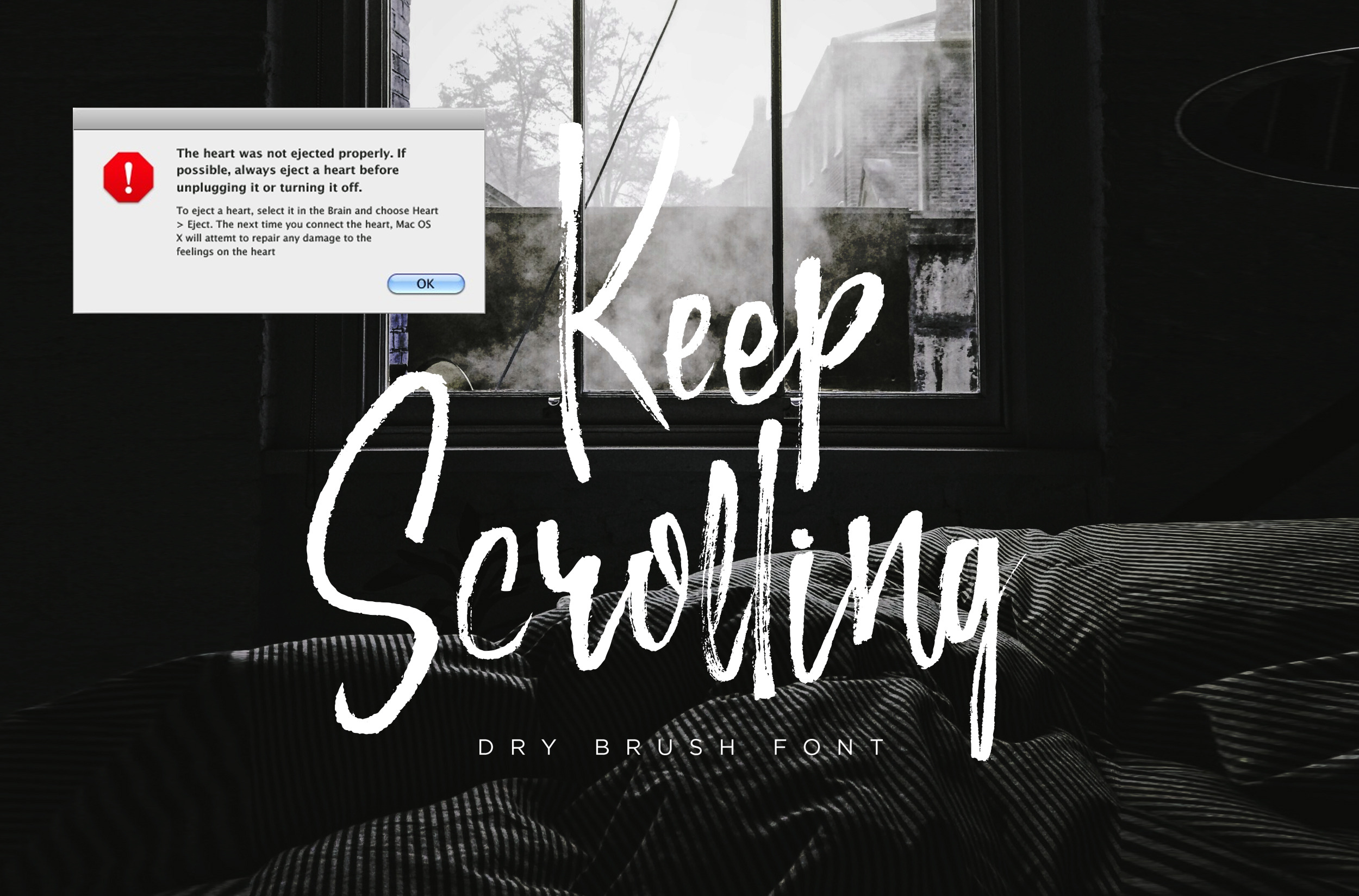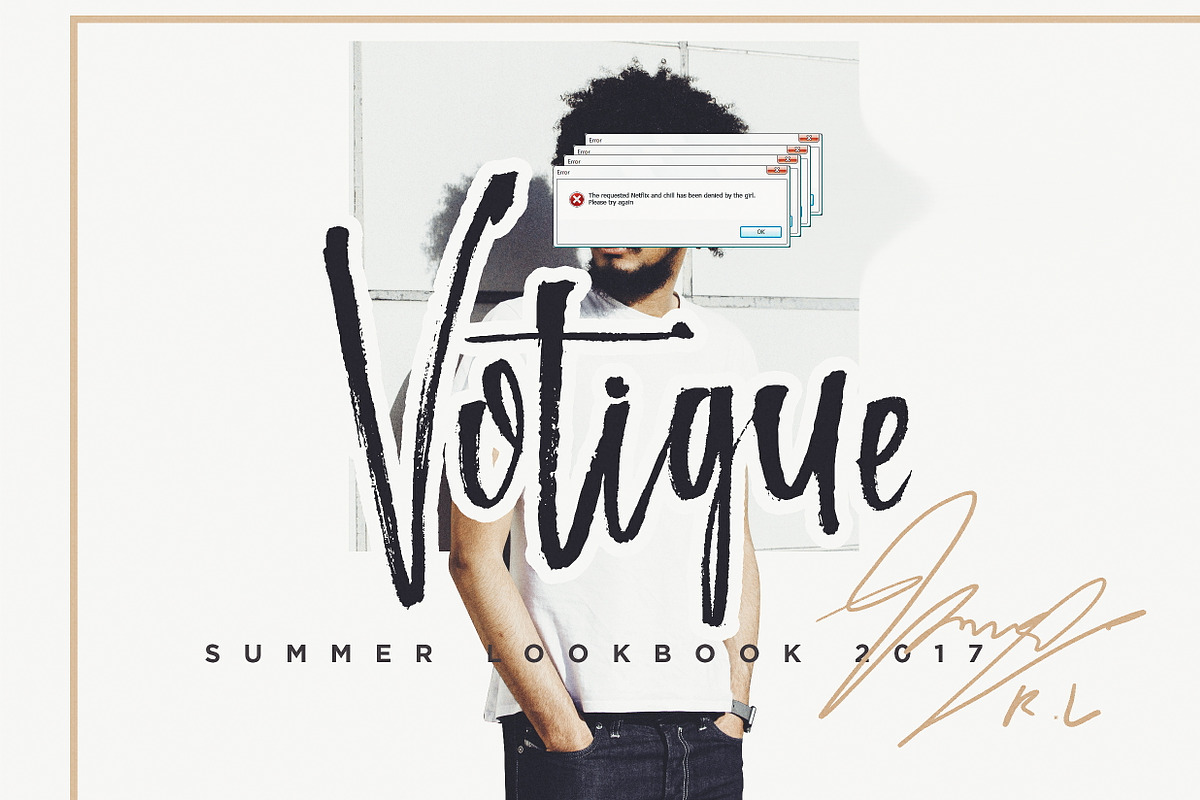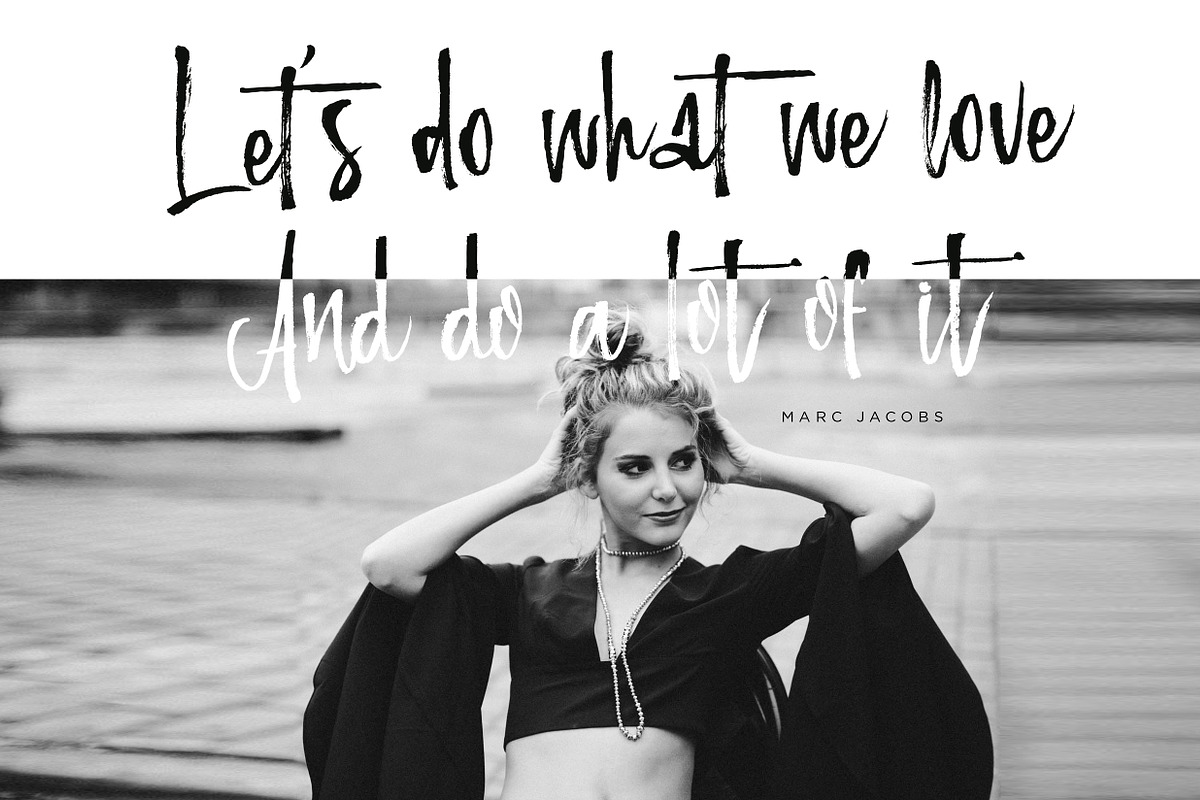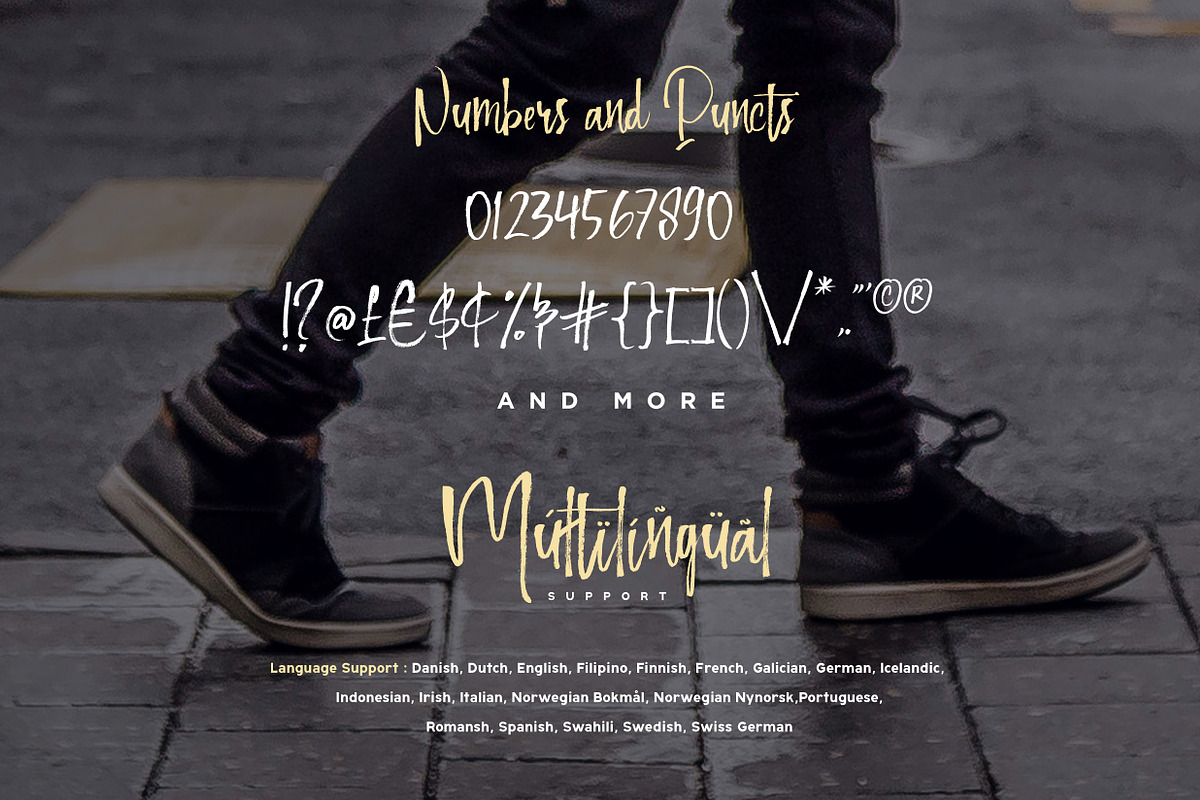
Keep Scrolling handwritten font
Its not a just font, its a definition of passion and creation to you who wear it to be really special person, just as simply as what the fashion did.
I'm in the total sober when i wrote those out. I always love to treat myfonts like they're alive, they have an attitude, heart to heart engagement, and the end of the goal is i always want to make them to be your pride and bring the new characters and personality for you to be amazing in every show.
Made from my implementation of the edgy fashion concept, with all of those wild and artsy look, i want you to be a purple cow among these crowded society. I want you to be dare to shine, you're fabulous.
Sorry for the long lines, let me introduce you Keep Scrolling. A fresh, edgy, wild, and artsy brush script font that came out from my handwritten lettering. Done carefully one by one to explore the characteristic of each letters to secure your confident and increase the value of your looks in every single appearance.
Keep Scrolling : Its a skinny straight script brush font that i made using the same brush that i used to make one of my best-selling font, Loveton (https://crmrkt.com/N9o35). Its a dry textured ink brush with fast stroke hand lettering style to make all of those wild-edgy-artsy-fancy look.